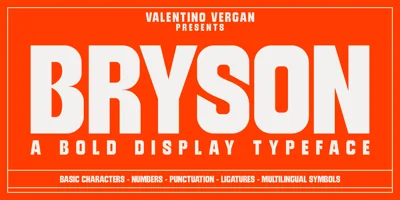
Bryson Font
Bryson Font is excellent for professional services branding, corporate communications, business consulting materials, financial firm signage, executive presentations, legal documentation, premium office environments, leadership development programs, professional networking events, and distinguished business communications.
What makes Bryson Font exciting is its executive sophistication that perfectly captures the authoritative presence and professional excellence found in corporate leadership and business distinction. This typeface features confident letterforms with executive proportions and business-inspired details that convey reliability, competence, and the distinguished professionalism that comes from years of business expertise and leadership experience. The font's authoritative personality and corporate authenticity make it ideal for professional service brands seeking to project credibility, expertise, and the executive presence that inspires confidence in business relationships and professional achievements.
Bryson Font family includes executive weight variations and professional alternatives that enhance its business appeal while providing design flexibility for corporate and professional applications. The font features authoritative ligatures, business-themed ornaments, and executive character variations that create authentic corporate atmosphere for professional services and business branding.
Professional service firms and corporate organizations consistently choose Bryson Font for projects requiring authentic executive appeal and business credibility. The font's distinguished character excels in applications targeting business professionals, corporate executives, and decision-makers who appreciate genuine business expertise and professional excellence. Whether you're designing for consulting firms, financial services, or executive programs, this authoritative typeface delivers the corporate authenticity and executive sophistication that resonates with audiences seeking genuine business competence and the professional distinction that defines corporate leadership and business excellence.